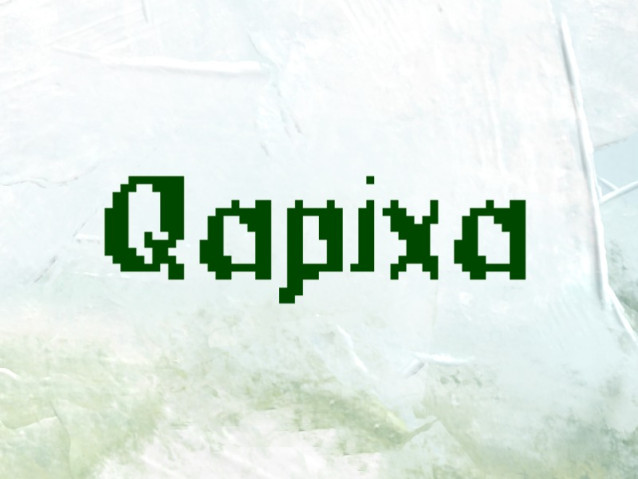
Qapixa Font
Qapixa Font is a pixel display font whose vintage aesthetic acts as a time machine ready to bring you back to the beginning of the Internet. You can use it with ease on any of your retro and contemporary designs. It works great for headlines or body copy. And it will look amazing in logos, editorials, clothing advertising, package designs, and anything that requires a vintage feel.